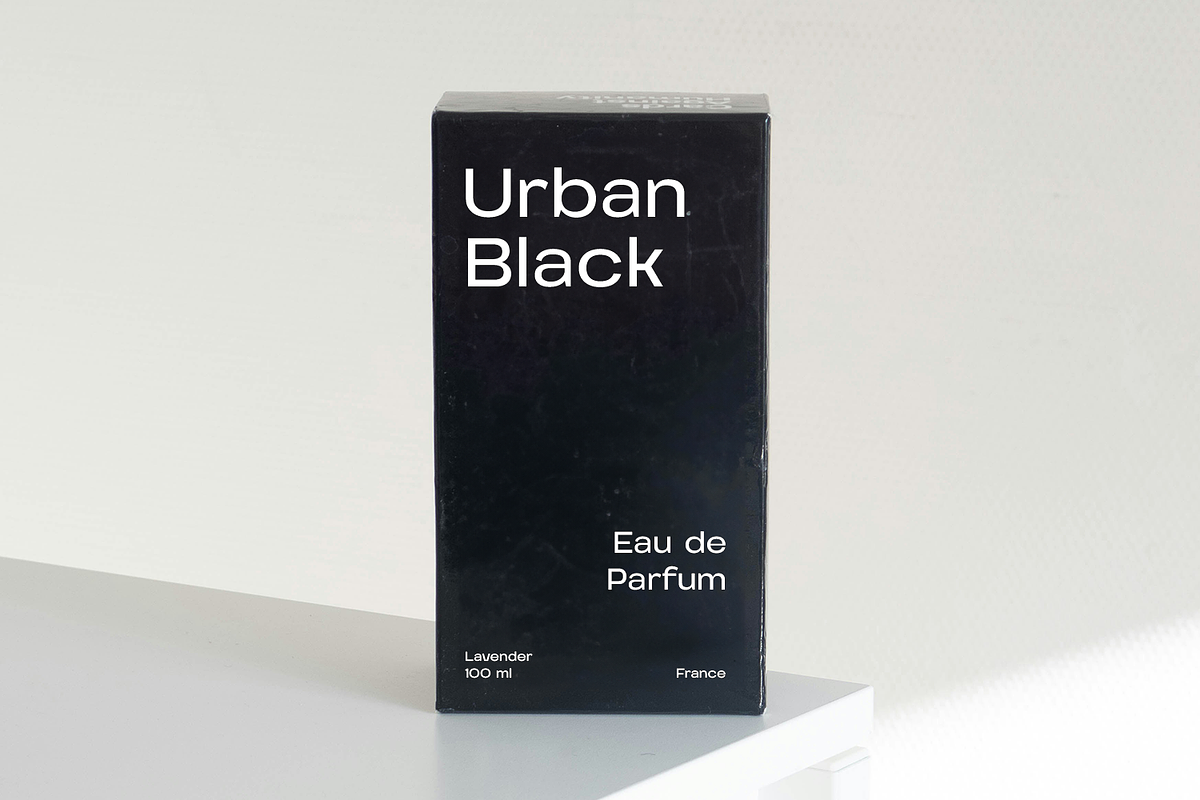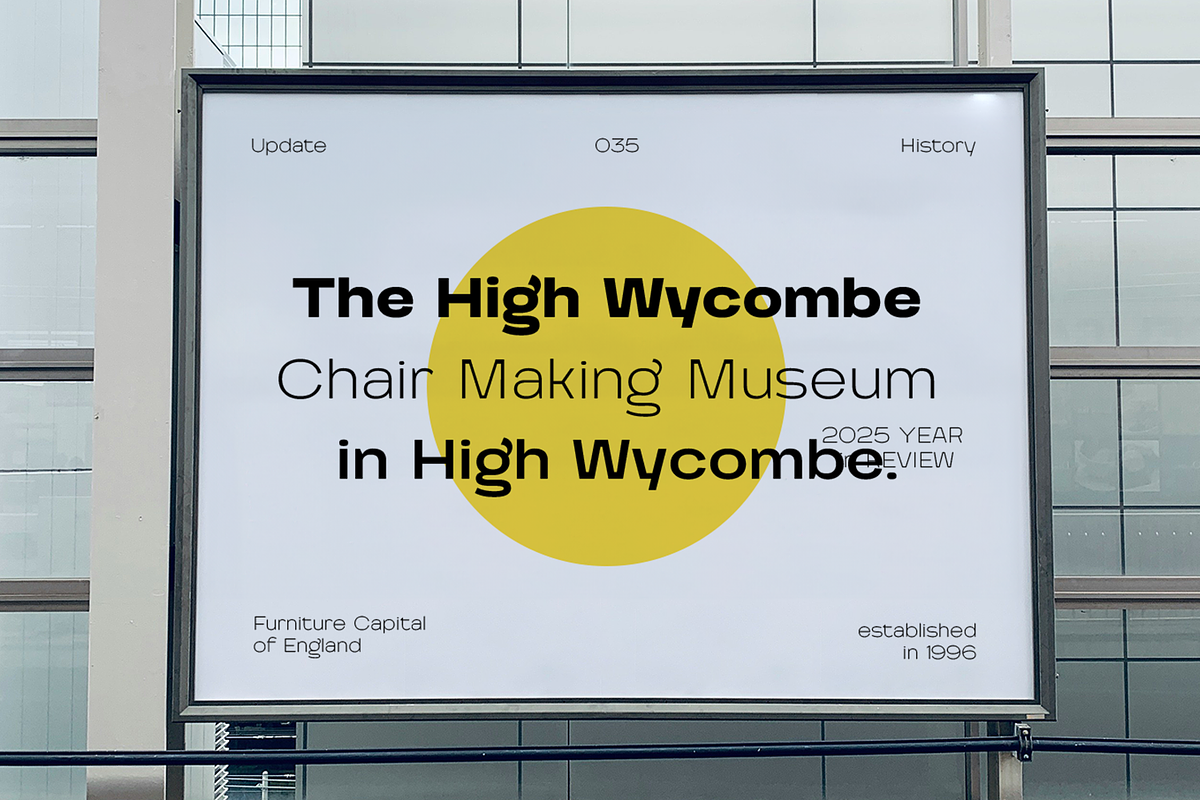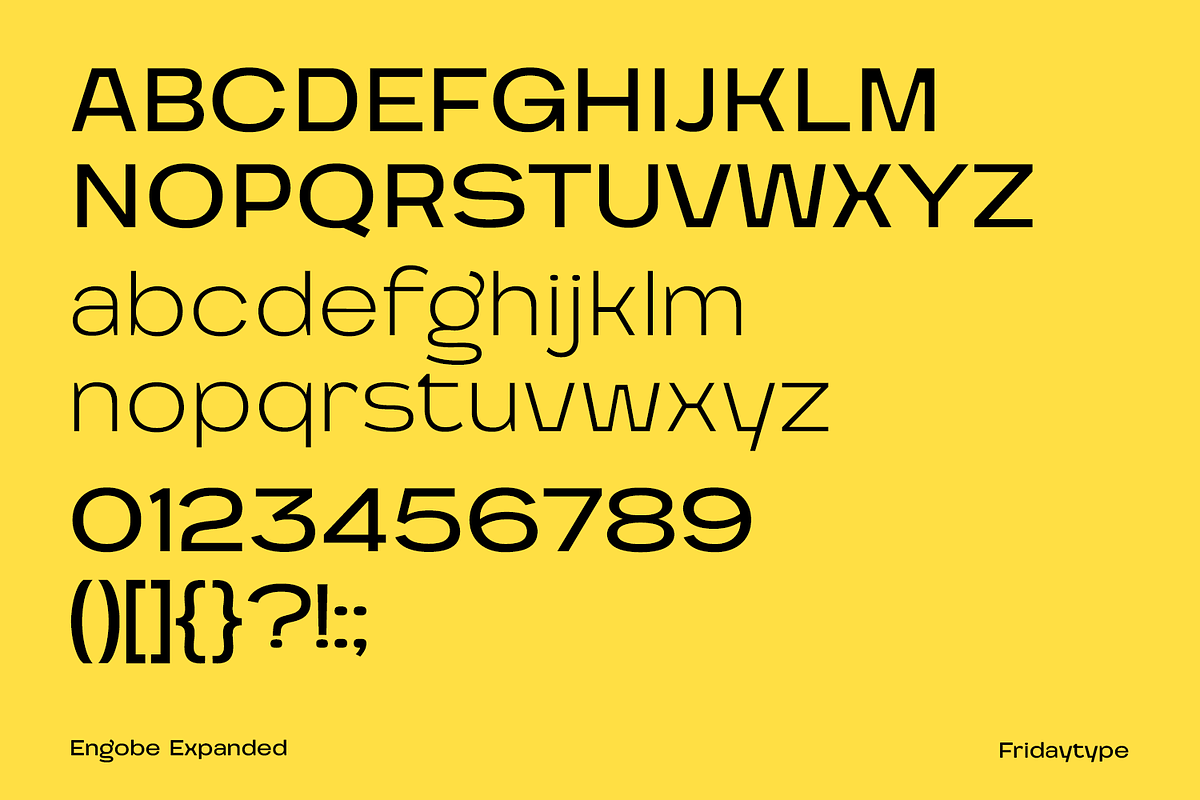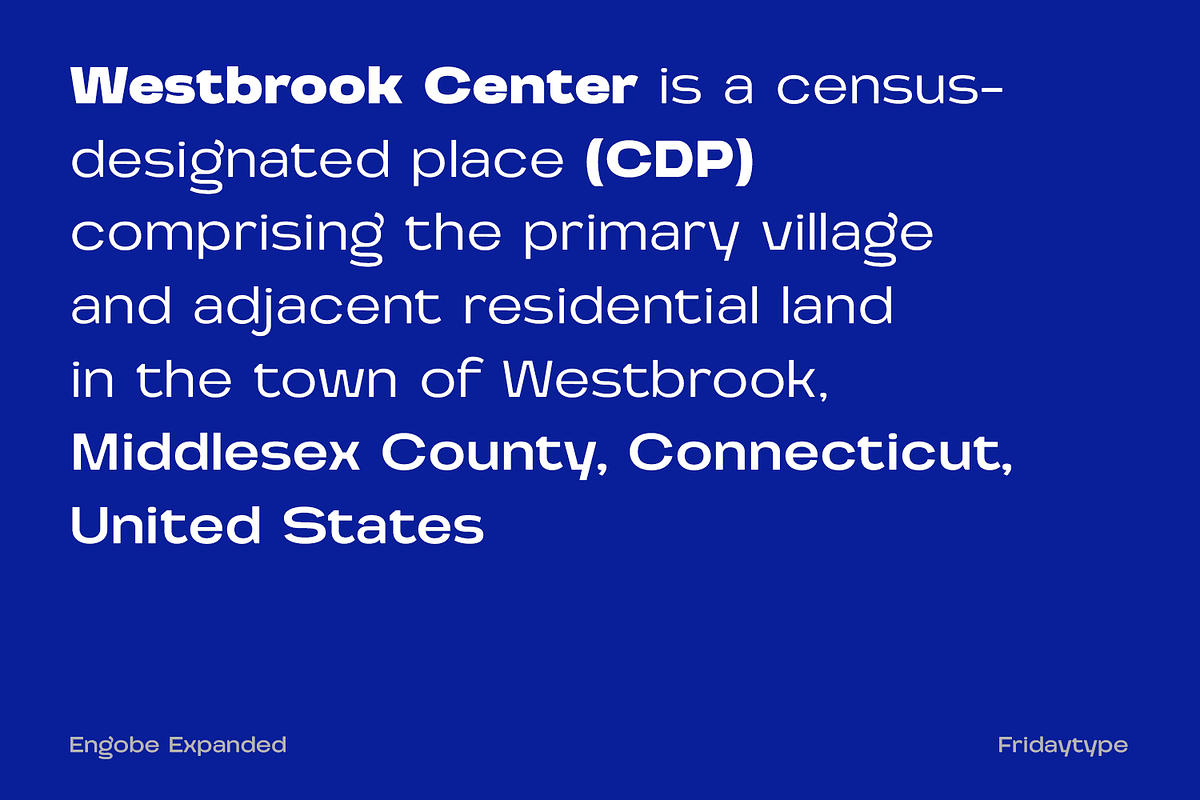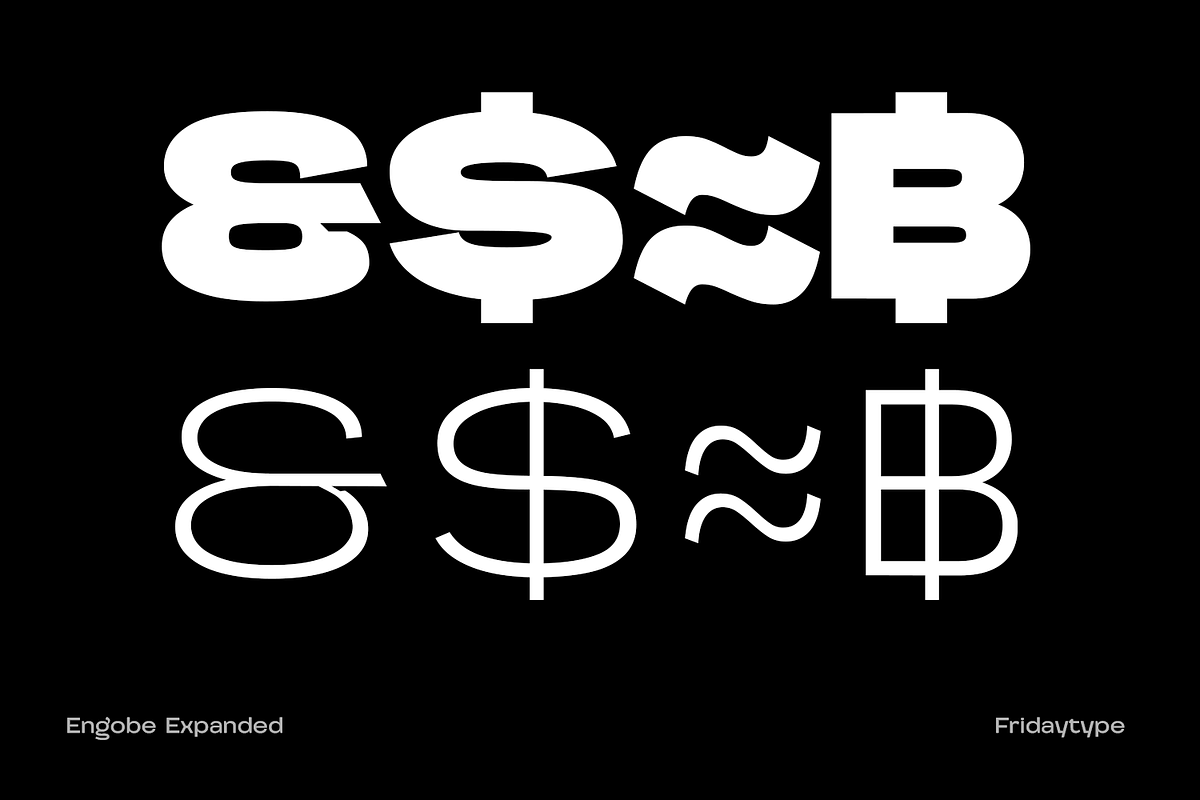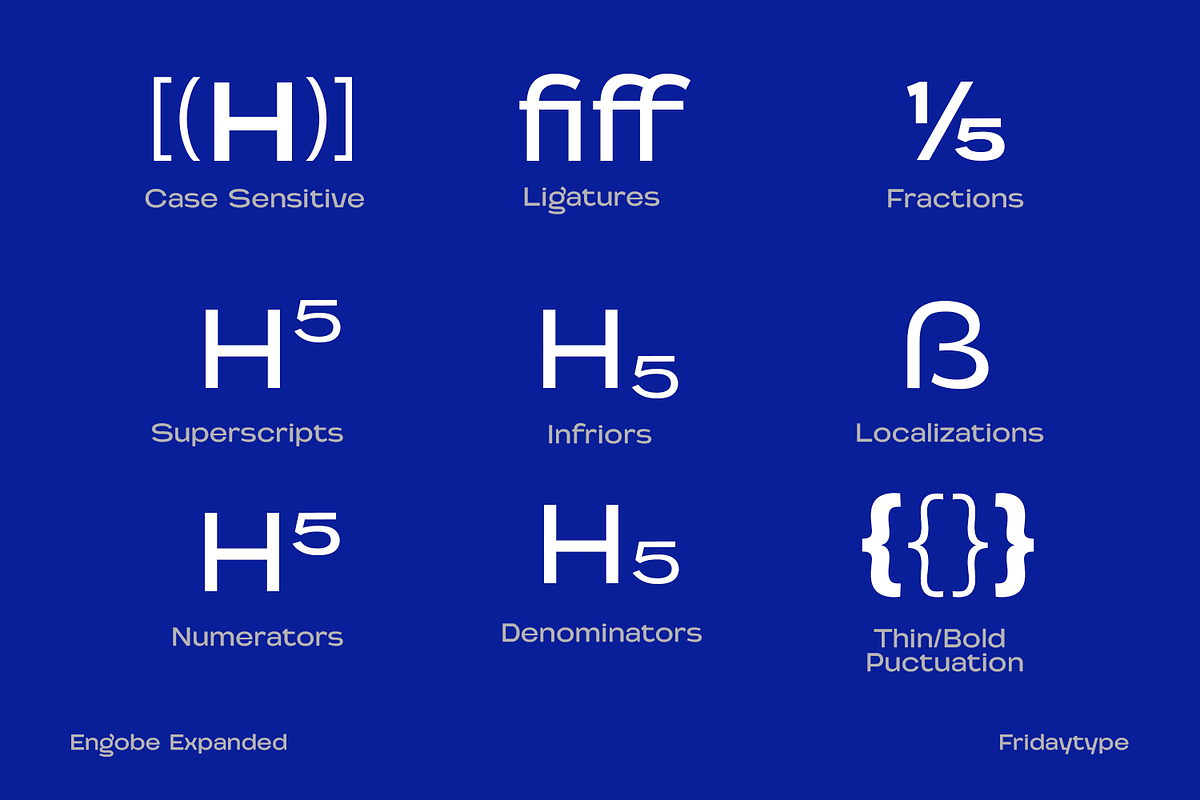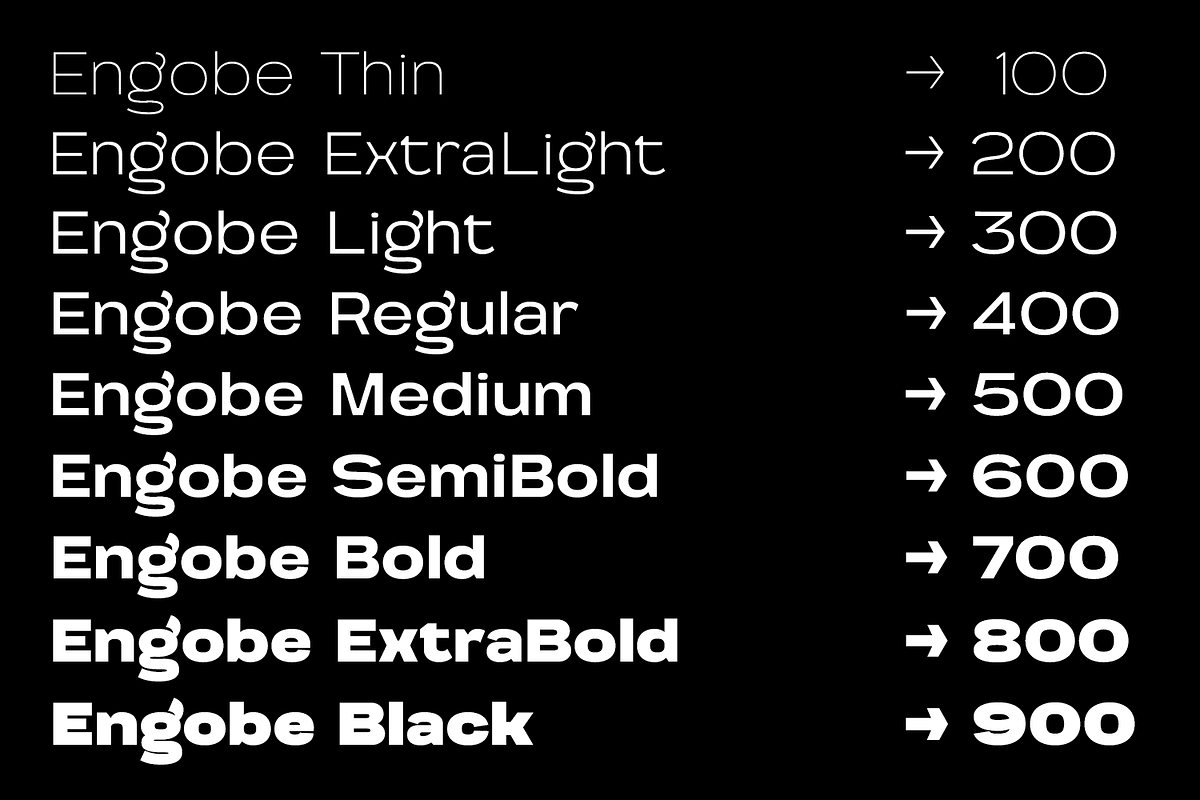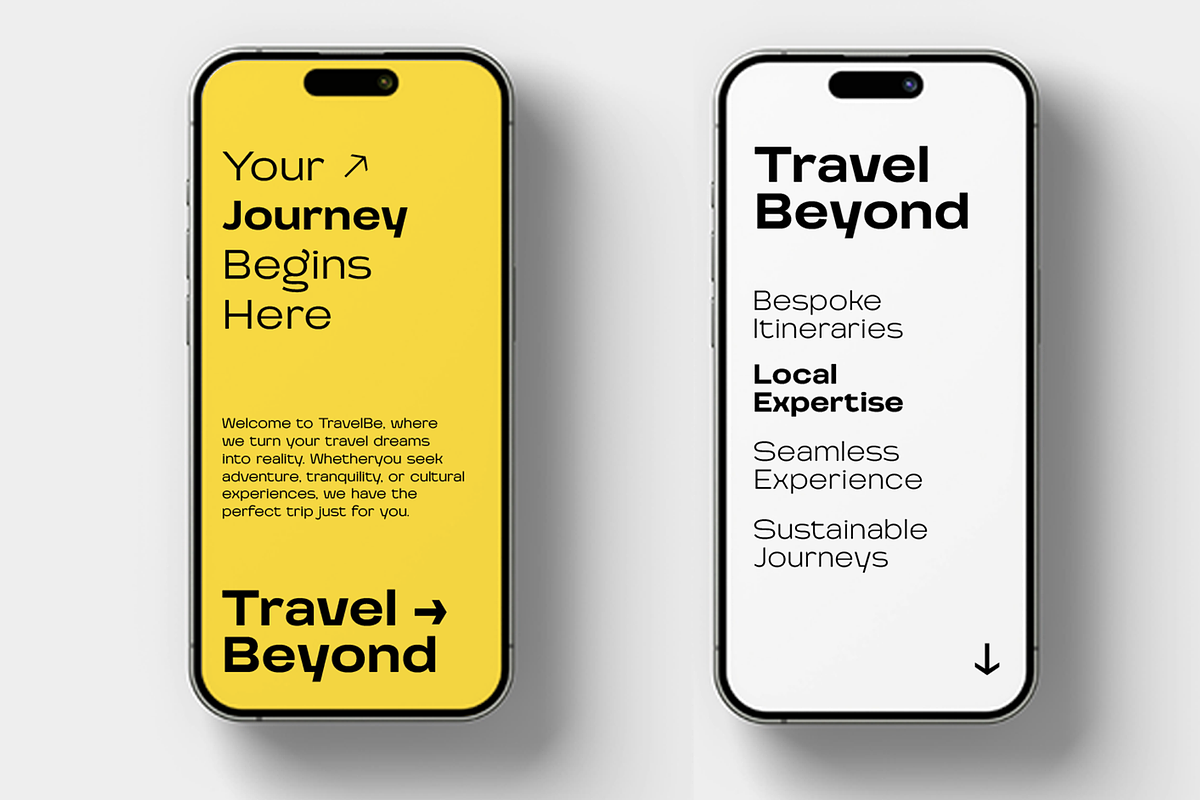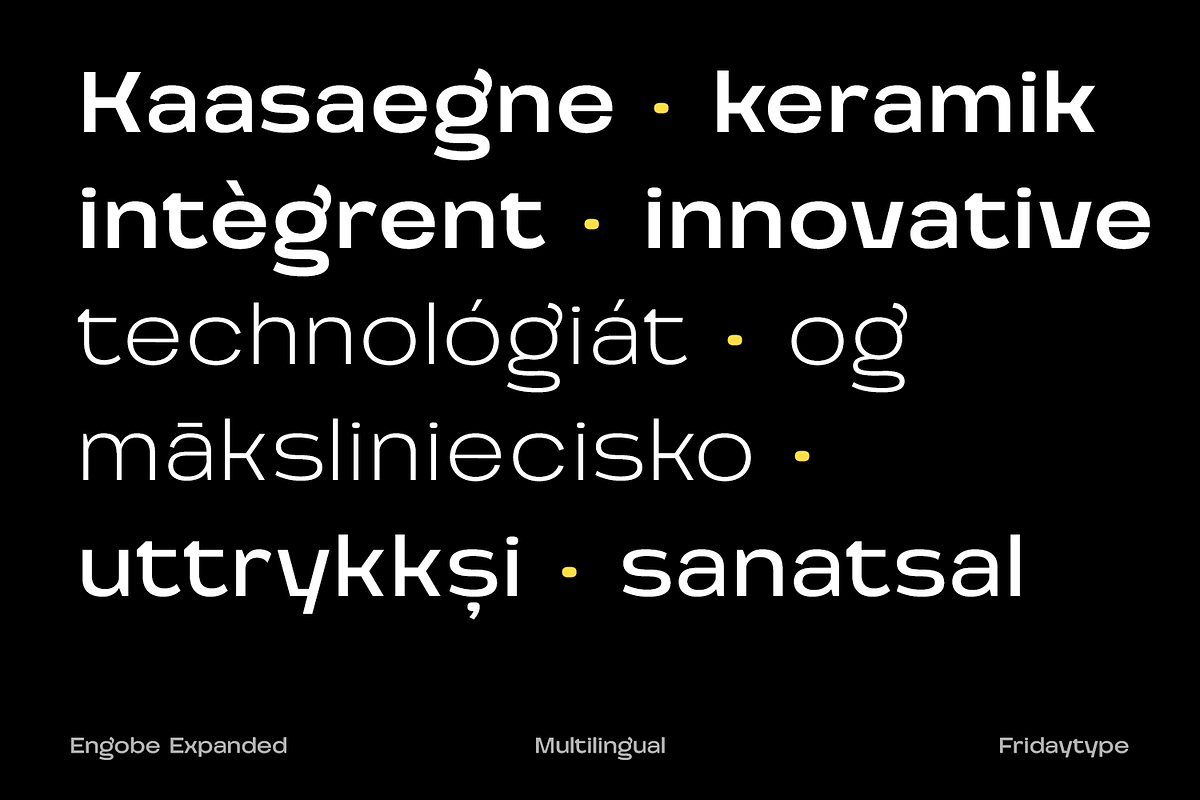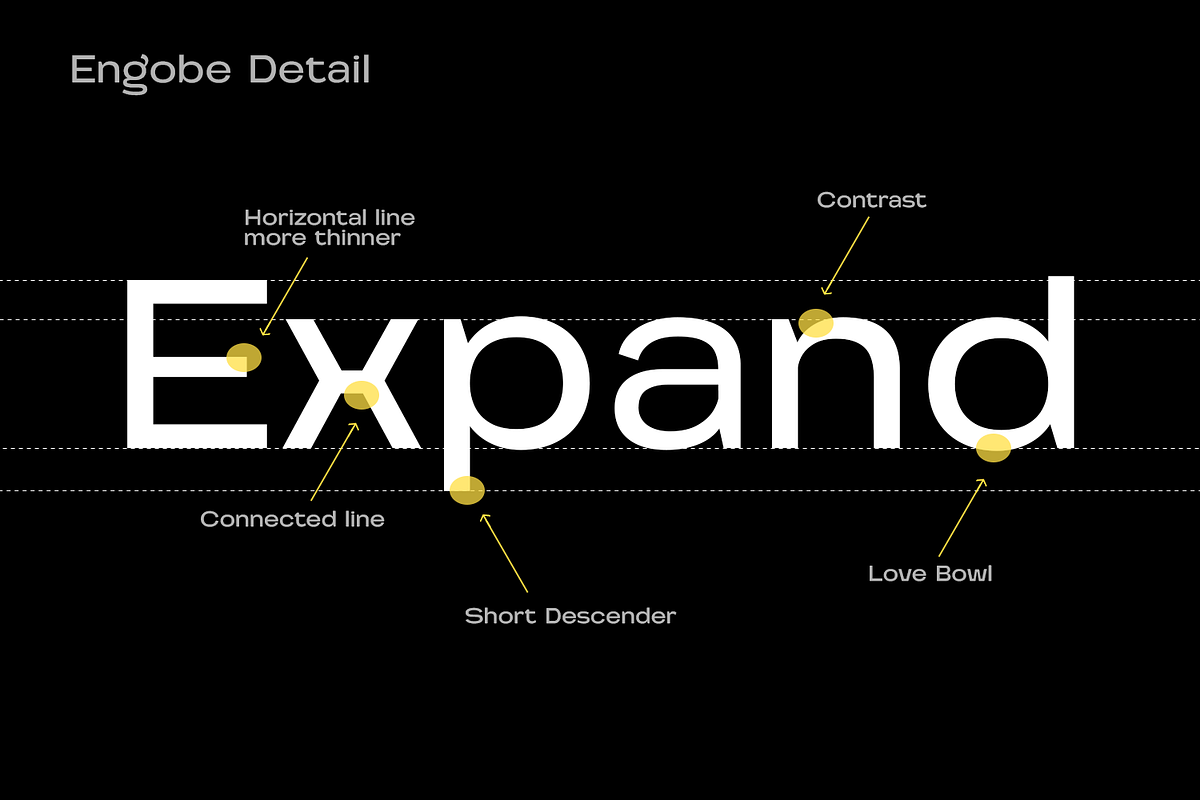
Engobe Expanded
Engobe is a versatile variable font that brings a unique and modern twist to your design projects. Easily adjust the weight and width to fit any design need, from bold headlines to delicate body text. Perfect for logos, branding, posters, web design, and more, Engobe stands out with its distinctive style.
Feature:
- 9 Styles, 9 Weights
- International characters (Multilingual)
- OpenType Features